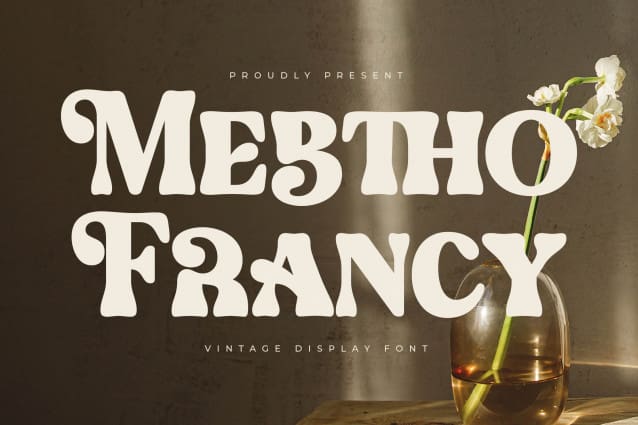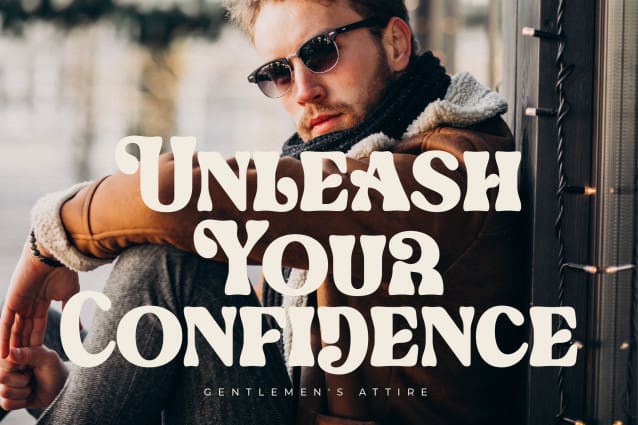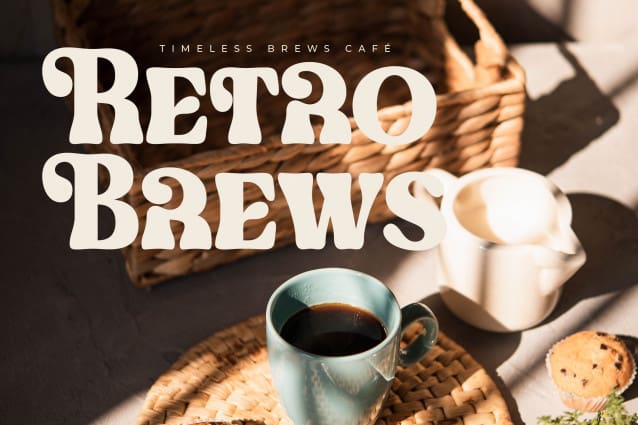
Mebtho Francy Font
Mebtho Francy Font – Vintage Display Font , from Letterena, is a Luxury Serif font, suitable for any projects such as: logos, branding projects, homeware designs, product packaging, mugs, quotes, posters, shopping bags, t-shirts, book covers, name card, invitation cards, greeting cards, label, photography, watermark, special events, and all your other luxury and beautiful projects that need a Luxury Serif taste.